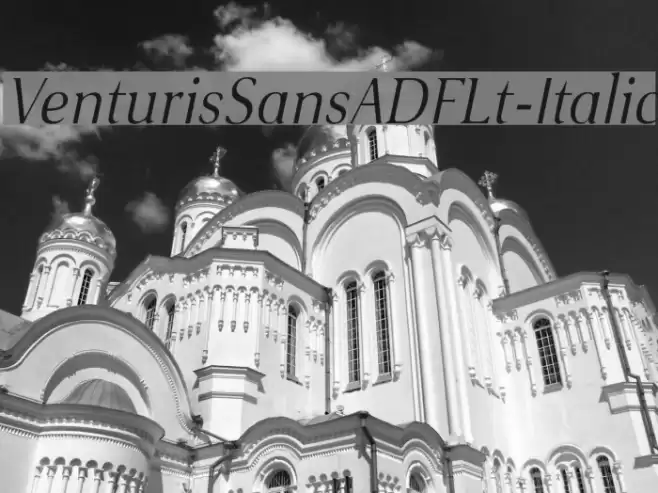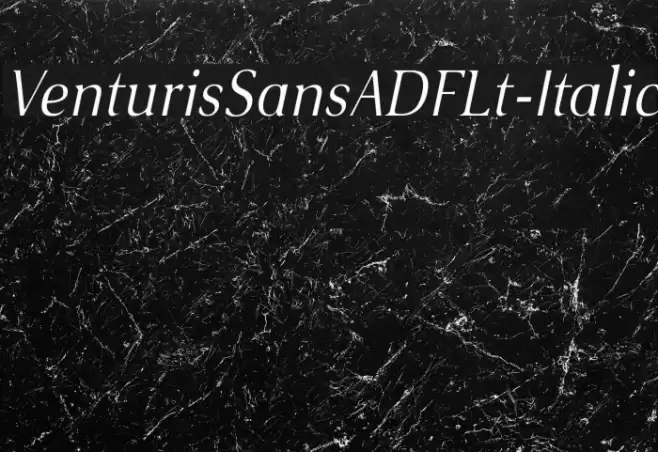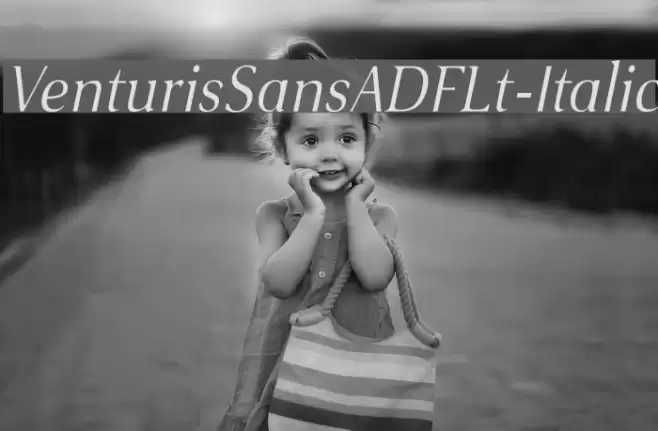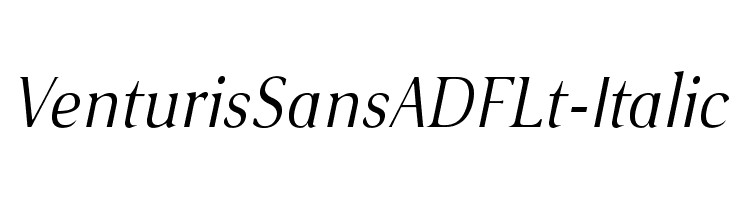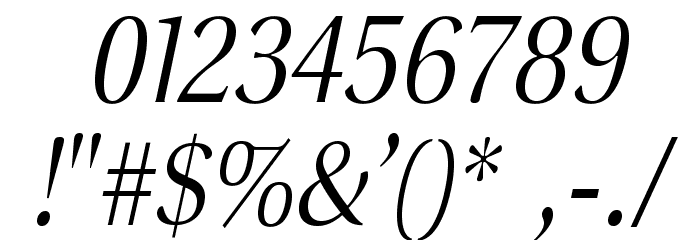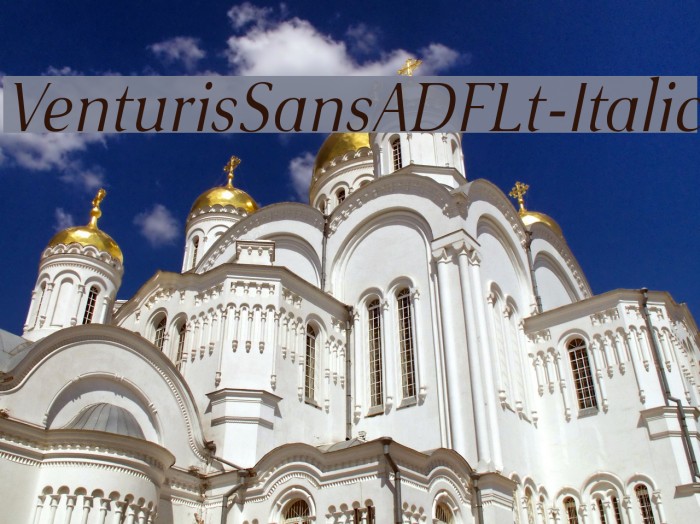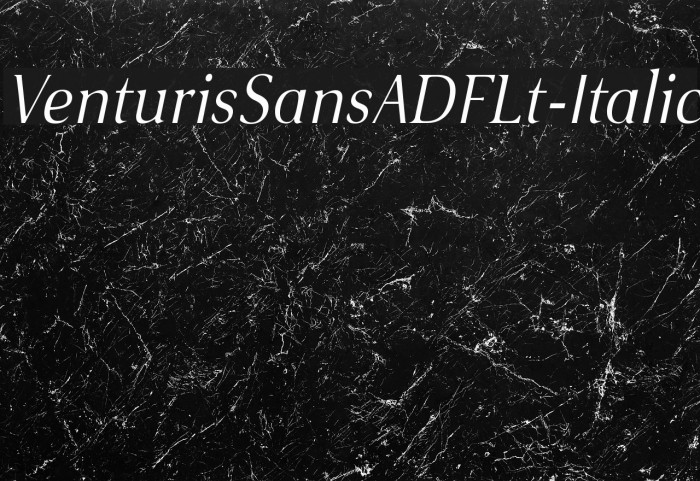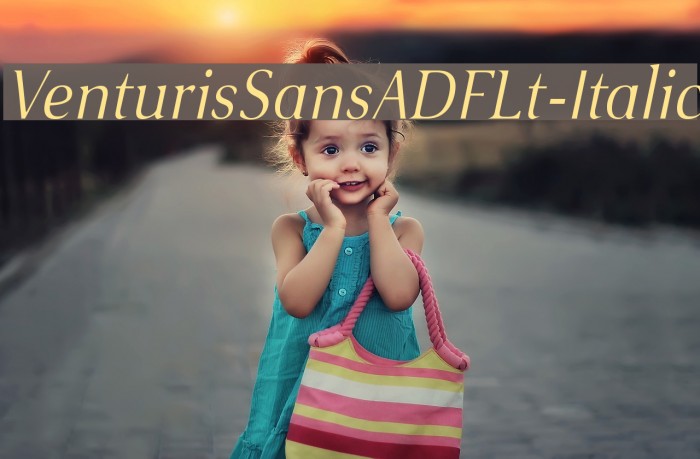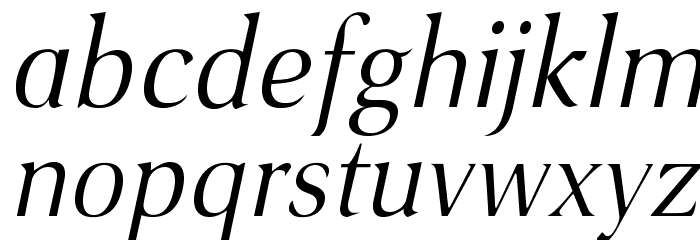
VenturisSansADFLt-Italic Font
VenturisSansADFLt-Italic Description
This font exhibits a refined and elegant style with a slight slant, giving it an italic appearance. The characters are well-proportioned, featuring smooth curves and a moderate contrast between thick and thin strokes. The uppercase letters are tall and commanding, while the lowercase letters maintain a consistent flow, enhancing readability. The numerals are clear and distinct, matching the overall sophisticated aesthetic. Special characters are thoughtfully designed, integrating seamlessly with the rest of the typeface. This font's graceful and professional look makes it suitable for a variety of applications.
A refined italic font with smooth curves and moderate contrast from Uncategorized fonts.
- Proposed Projects: Ideal for elegant invitations, formal documents, branding, and editorial design.
- Weight: Light
- Overall Style: Classic